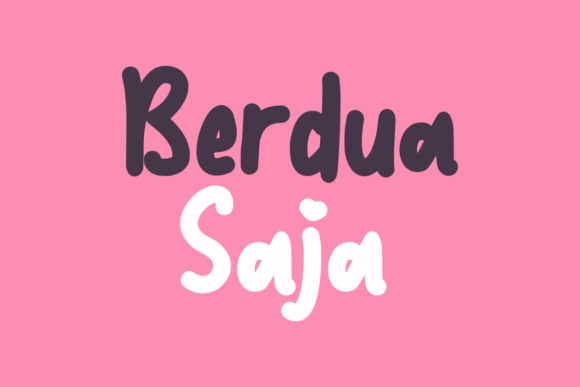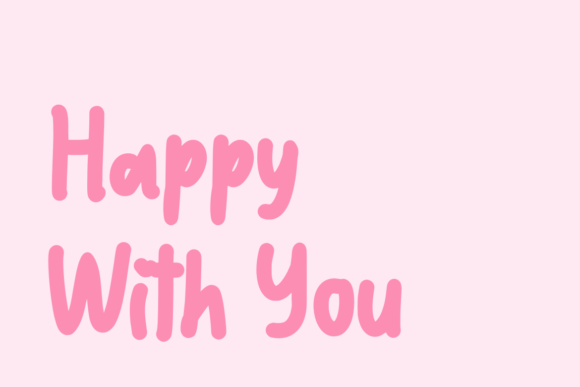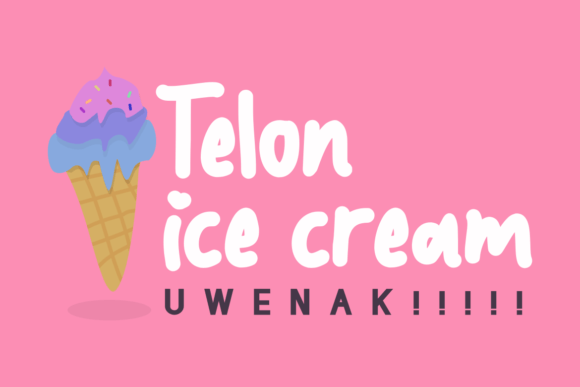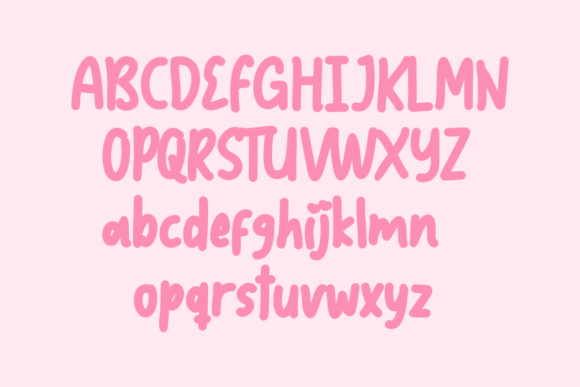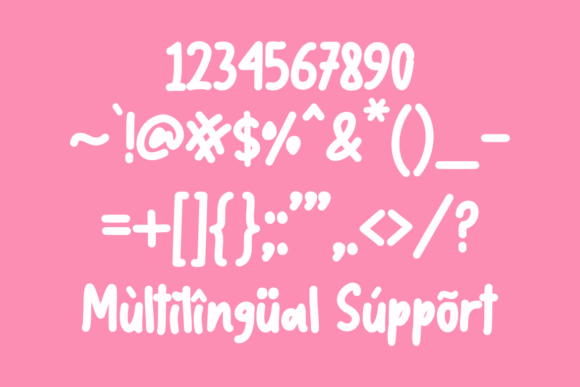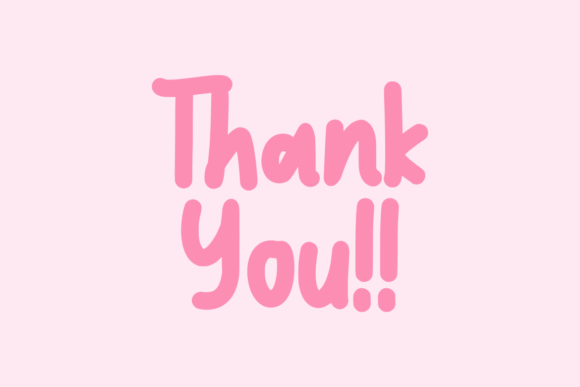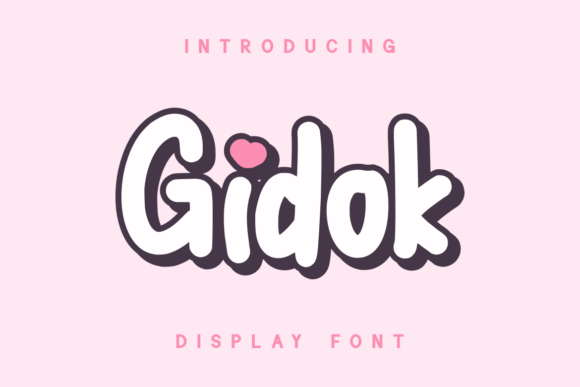
Gidok Font: The Fun and Friendly Display Font for Creative Ideas
Are you a designer or crafter looking for a font that can bring your creative ideas to life? Look no further than Gidok Font! This fun and friendly display font is masterfully designed to become a true favorite among designers and crafters alike. With its unique and playful style, Gidok Font has the potential to take your designs to the highest level.
What is Gidok Font?
Gidok Font is a display font that is perfect for headlines, titles, and other creative projects. Its fun and friendly style makes it ideal for designs that require a playful touch. The font is carefully crafted with attention to detail, ensuring that it is both visually appealing and highly legible.
Key Features of Gidok Font
• Unique and Playful Style: Gidok Font has a one-of-a-kind design that sets it apart from other fonts. Its playful style makes it perfect for creative projects that require a fun and friendly touch.
• Highly Legible: Despite its playful style, Gidok Font is highly legible, making it easy to read and understand.
• Versatile: Gidok Font is a versatile font that can be used for a wide range of creative projects, from posters and flyers to social media graphics and website headers.
• Easily Customizable: Gidok Font is easily customizable, allowing you to adjust the font size, color, and style to fit your design needs.
Benefits of Using Gidok Font
Using Gidok Font in your designs can have numerous benefits. Here are a few:
• Adds a Playful Touch: Gidok Font adds a playful touch to your designs, making them more engaging and attention-grabbing.
• Enhances Creativity: The unique and playful style of Gidok Font can inspire creativity and help you think outside the box.
• Perfect for Branding: Gidok Font is perfect for branding projects, as it can help create a fun and friendly image for your brand.
• Easy to Pair with Other Fonts: Gidok Font is easy to pair with other fonts, making it a great addition to your font library.
Who Can Use Gidok Font?
Gidok Font is perfect for a wide range of designers and crafters, including:
• Graphic Designers: Graphic designers can use Gidok Font in a variety of projects, from posters and flyers to social media graphics and website headers.
• Crafters: Crafters can use Gidok Font in their craft projects, such as handmade cards, scrapbooking, and DIY home decor.
• Small Business Owners: Small business owners can use Gidok Font in their branding materials, such as logos, business cards, and brochures.
• Marketing Agencies: Marketing agencies can use Gidok Font in their clients’ marketing materials, such as social media graphics and advertisements.
How to Use Gidok Font
Using Gidok Font is easy! Here are a few tips:
• Use it as a Headline Font: Use Gidok Font as a headline font to add a playful touch to your designs.
• Pair it with Other Fonts: Pair Gidok Font with other fonts to create a unique and visually appealing design.
• Experiment with Colors: Experiment with different colors to find the perfect combination for your design.
• Use it in Digital and Print Designs: Use Gidok Font in both digital and print designs, such as social media graphics, website headers, and posters.
In conclusion, Gidok Font is a fun and friendly display font that is perfect for designers and crafters looking to add a playful touch to their designs. With its unique and playful style, highly legible design, and versatility, Gidok Font is a great addition to any font library. Whether you’re a graphic designer, crafter, small business owner, or marketing agency, Gidok Font is sure to become a true favorite.